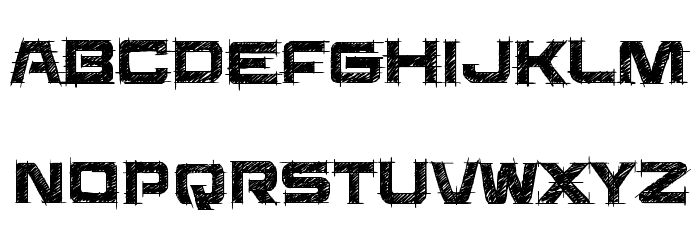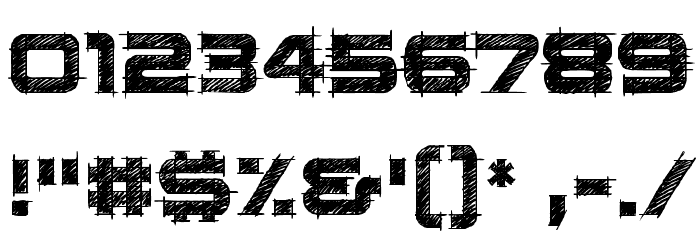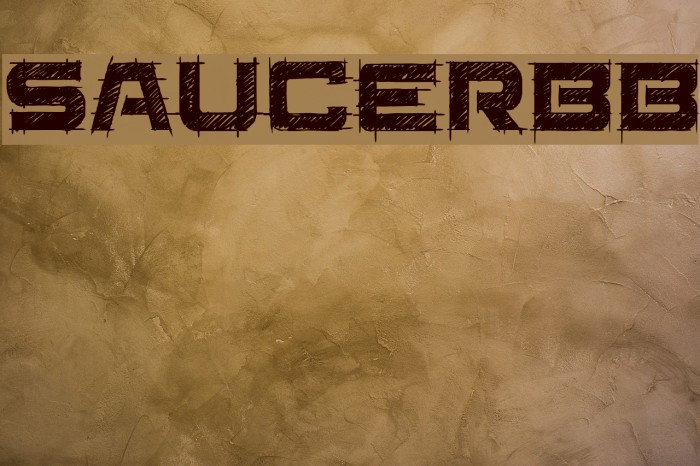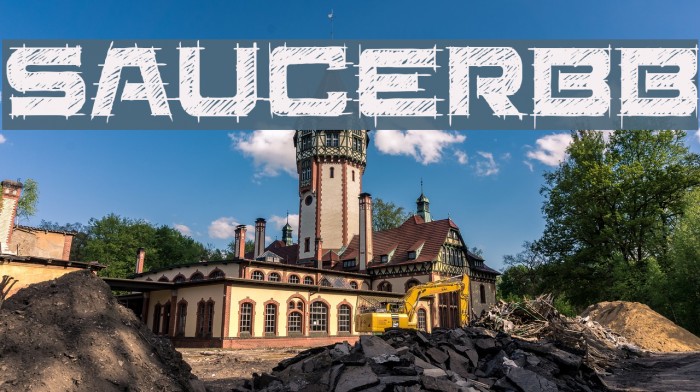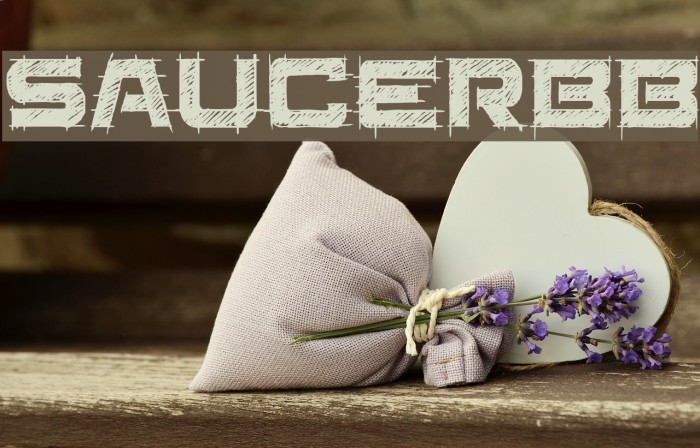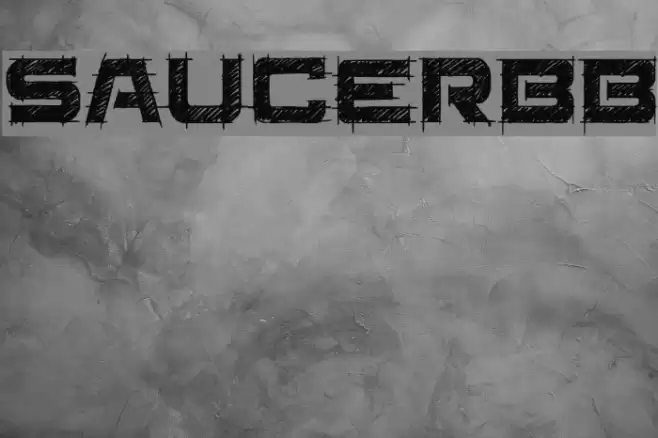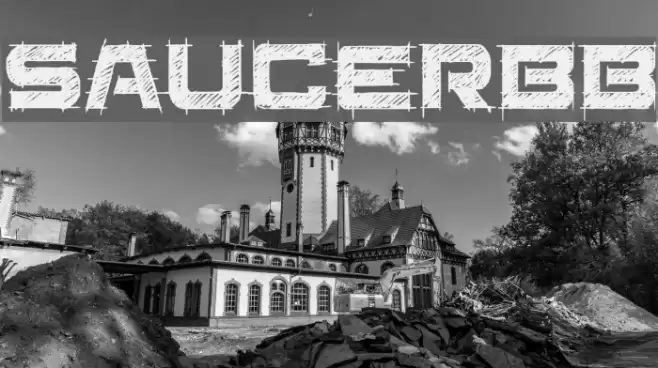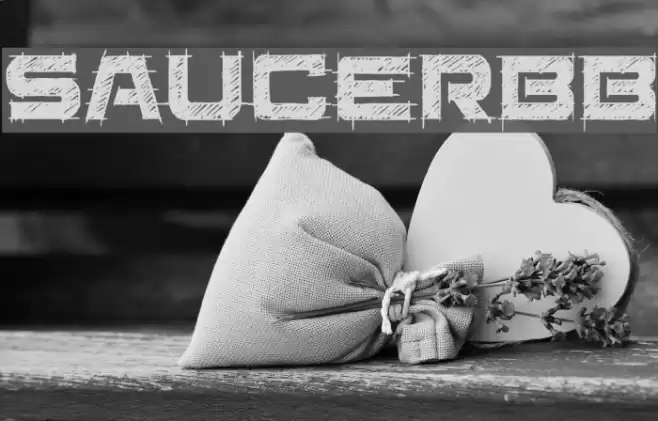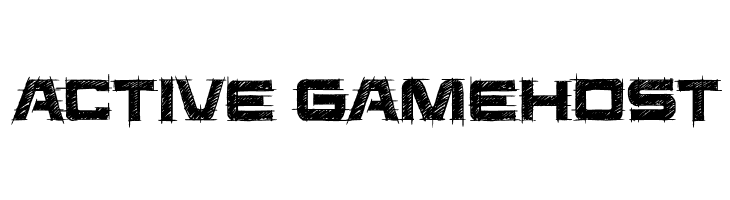
SaucerBB Font
This font features a bold, distressed style with a unique, textured appearance that resembles scratches or rough brush strokes. The characters are uppercase and lowercase, with numbers and a variety of special symbols. Each letter is distinct, with sharp angles and a rugged, edgy look that conveys a sense of intensity and dynamism. The font's design is highly decorative, making it stand out in any context. Its boldness and texture create a striking visual impact, suitable for projects that require a strong, attention-grabbing typeface.
A bold, distressed font with a textured, scratch-like appearance.
- Proposed Projects: Ideal for posters, album covers, video game titles, or any project needing a bold, edgy aesthetic.